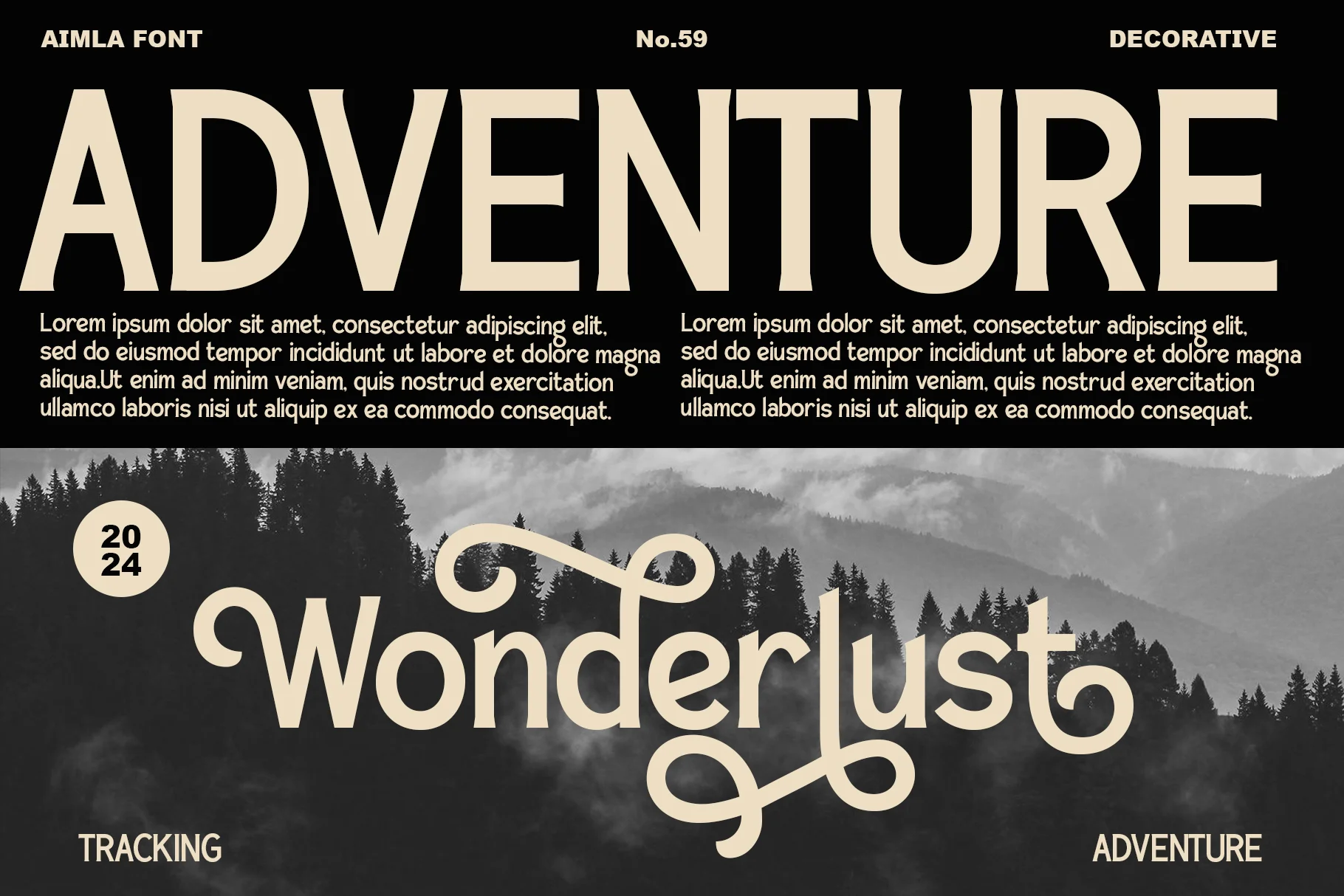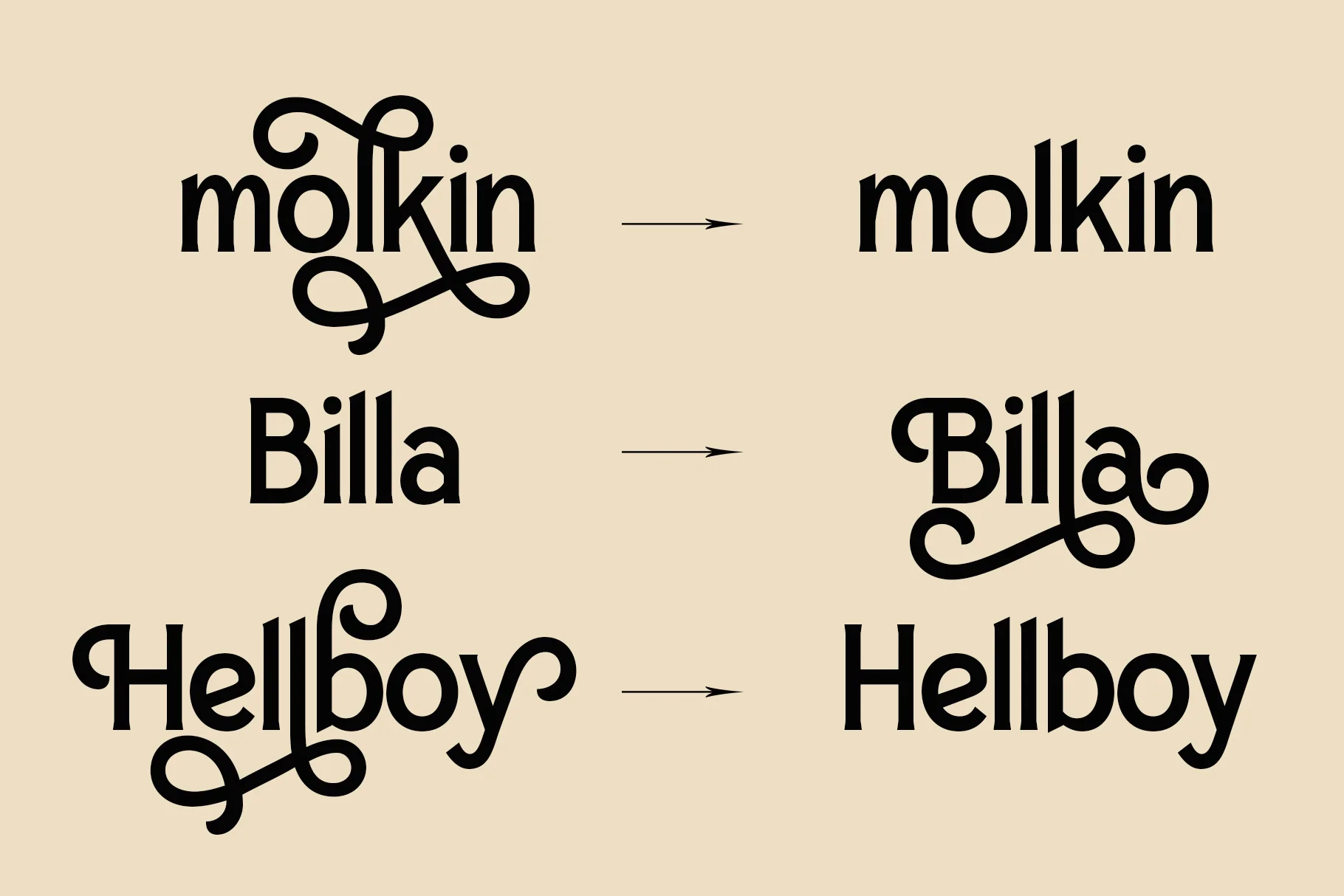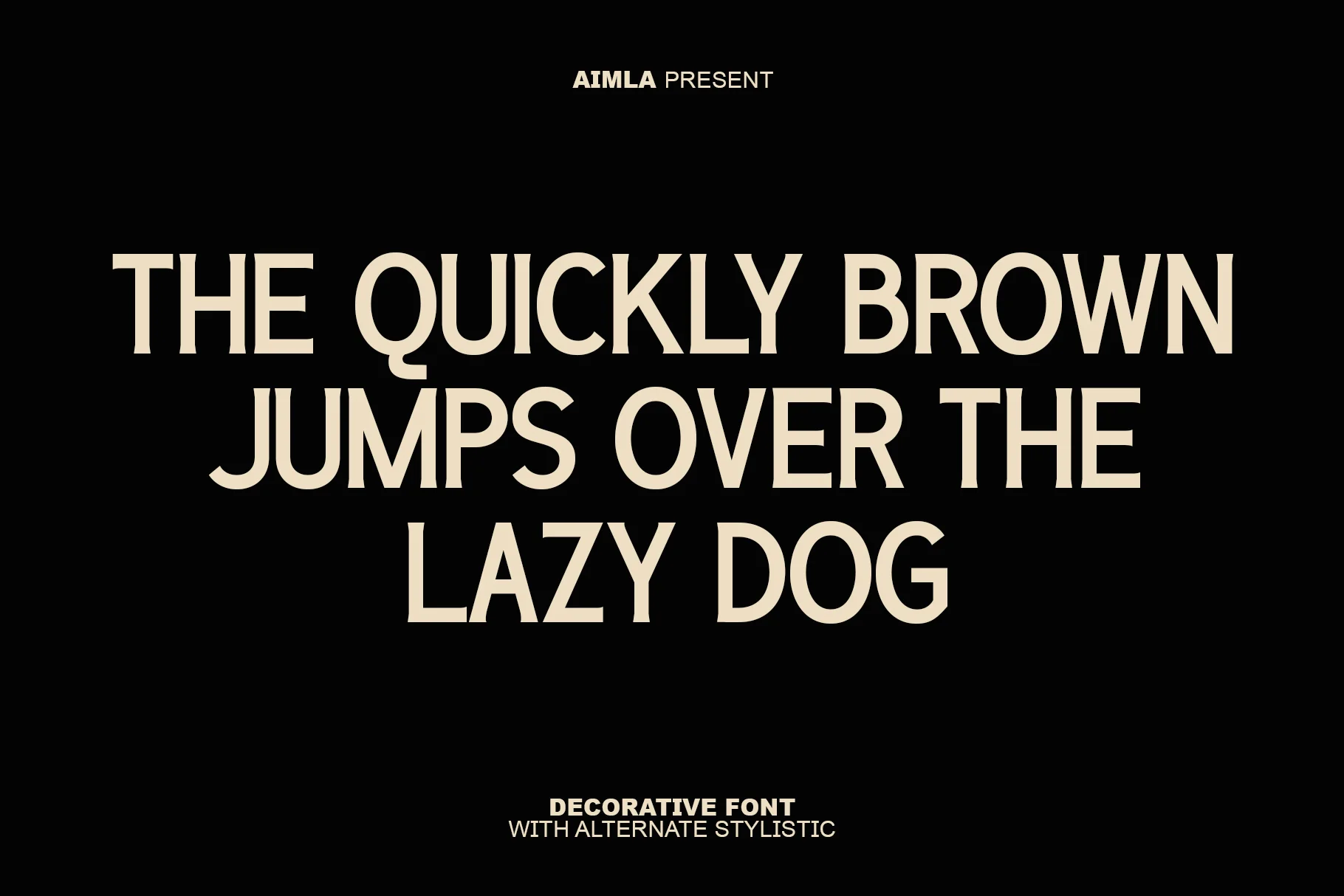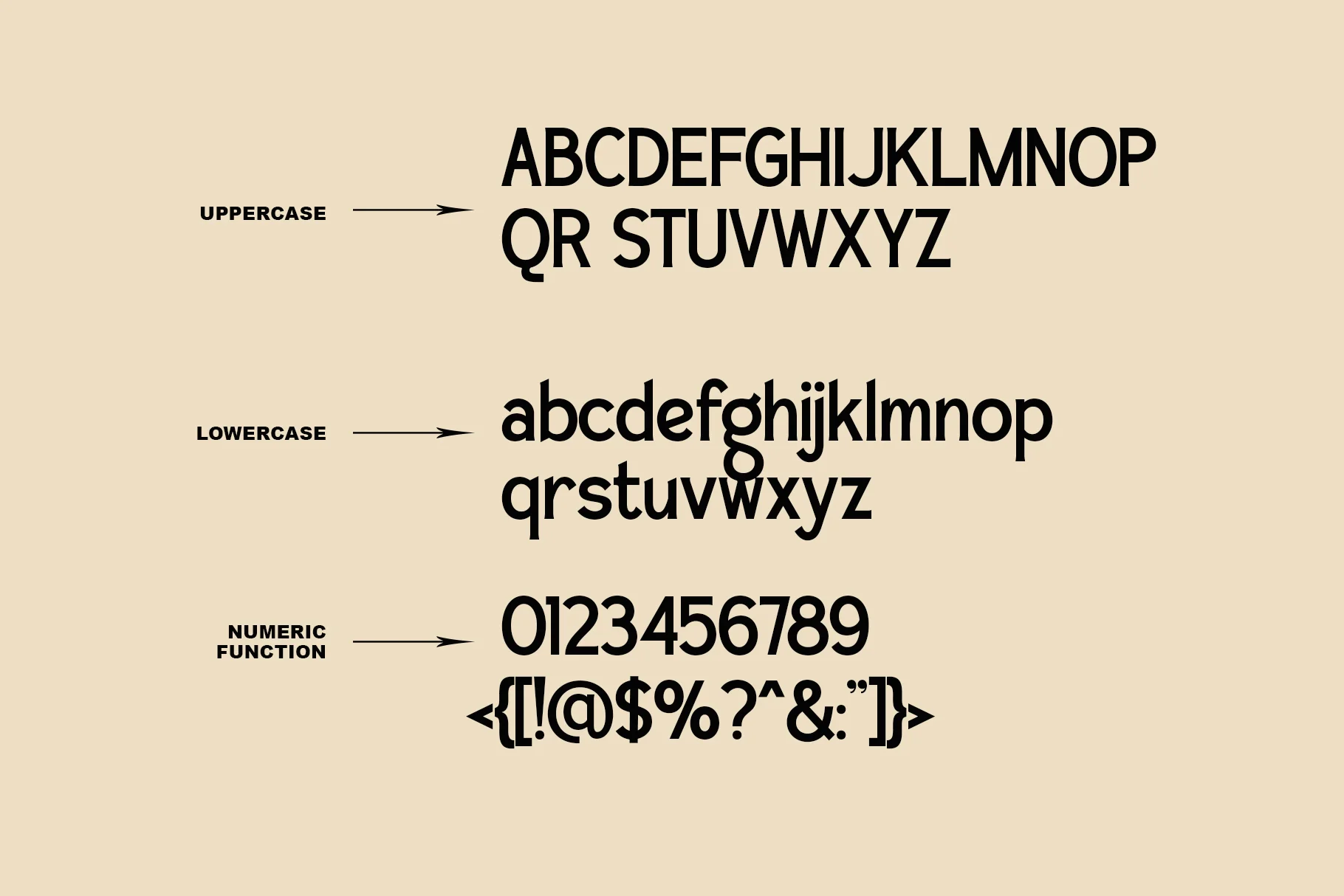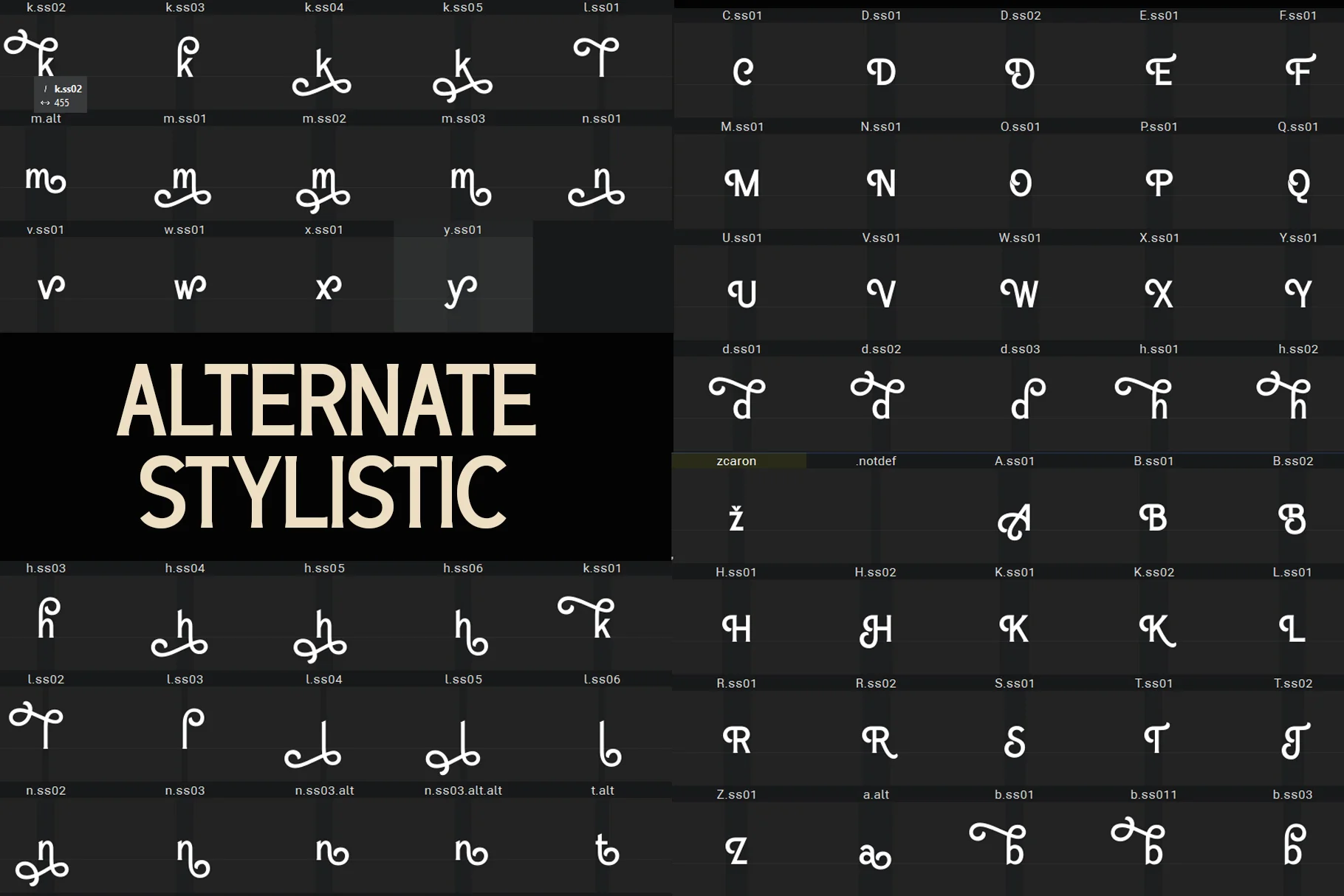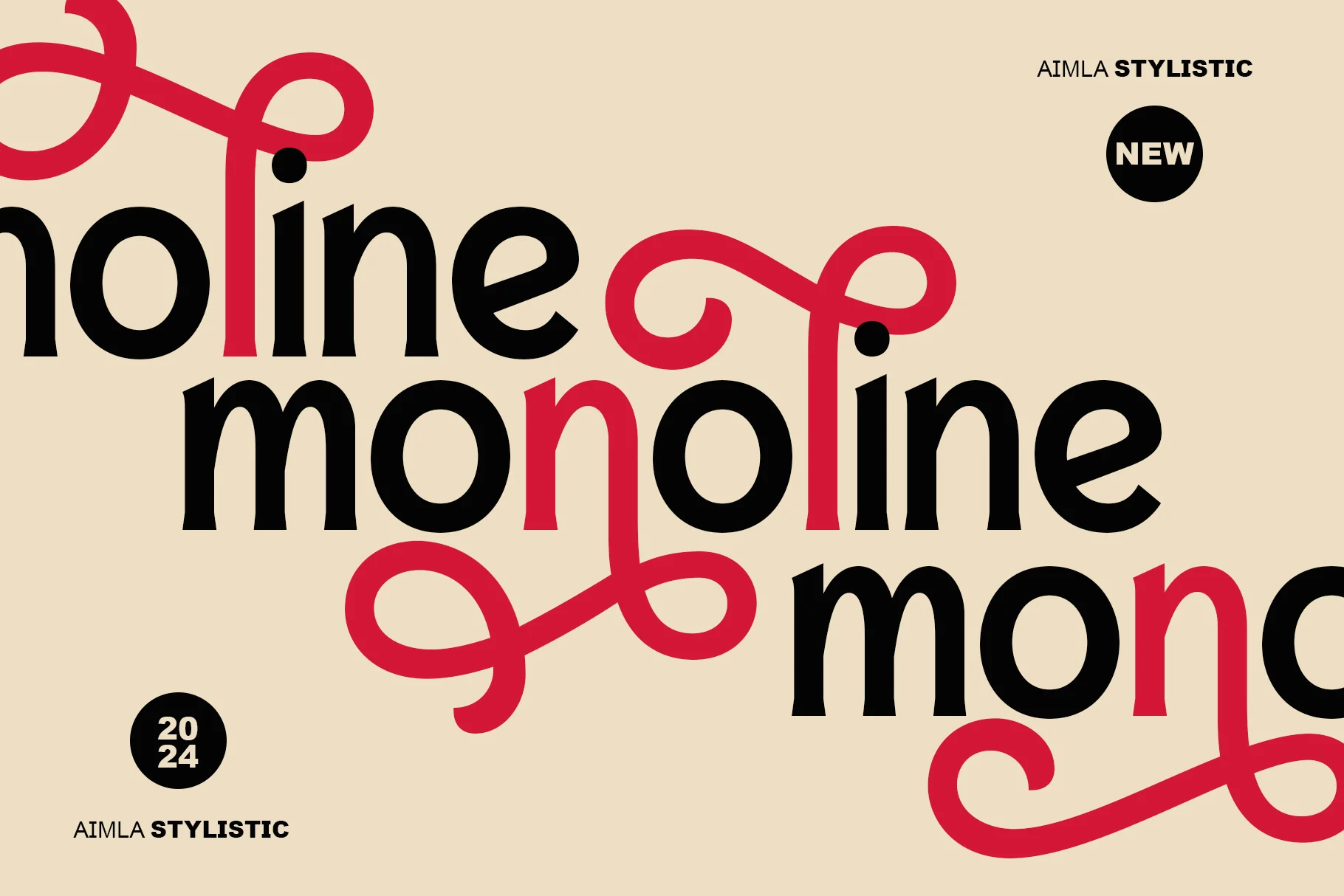
Aimla
- Spacing Monospace
"Aimla", is a highly decorative display typeface with a strong focus on swash elements. The font maintains a uniform, bold line weight, which gives it a strong and solid visual impact despite its numerous curves and loops.
Features
- Uppercase and Lowercase – Complete range of letter cases for diverse uses.
- Numerals – Includes numbers for various creative needs.
- Functional – Designed for efficiency and aesthetic appeal.
- Multilingual Support – Includes characters for multiple languages.
- Stylistic Variations – Offers creative style options.
This unique and decorative style makes the font perfect for:
- Luxury Branding: Suitable for logos or packaging for high-end products, boutiques, cosmetics, or jewelry.
- Invitations: Especially for formal or uniquely themed events like weddings or celebrations.
- Product Design: T-shirts, merchandise, or creative product packaging.
- Social Media: Headers or posts requiring attention-grabbing typography.